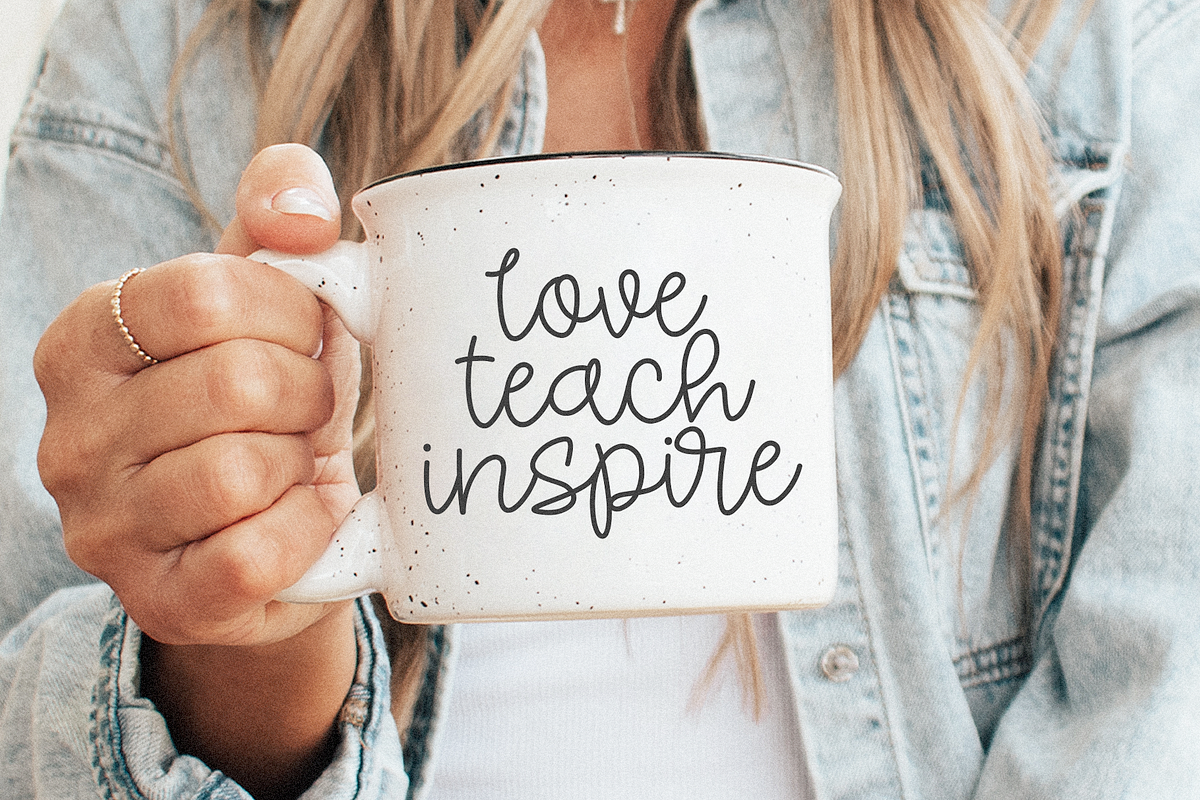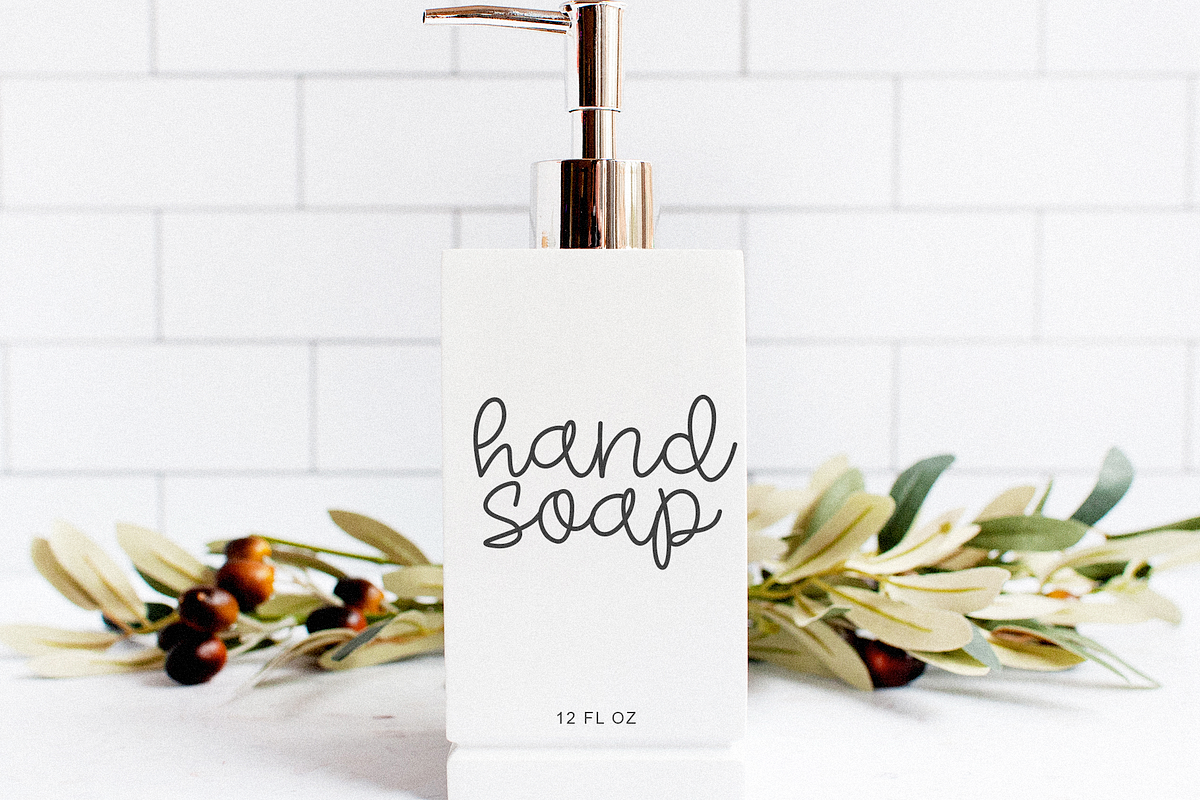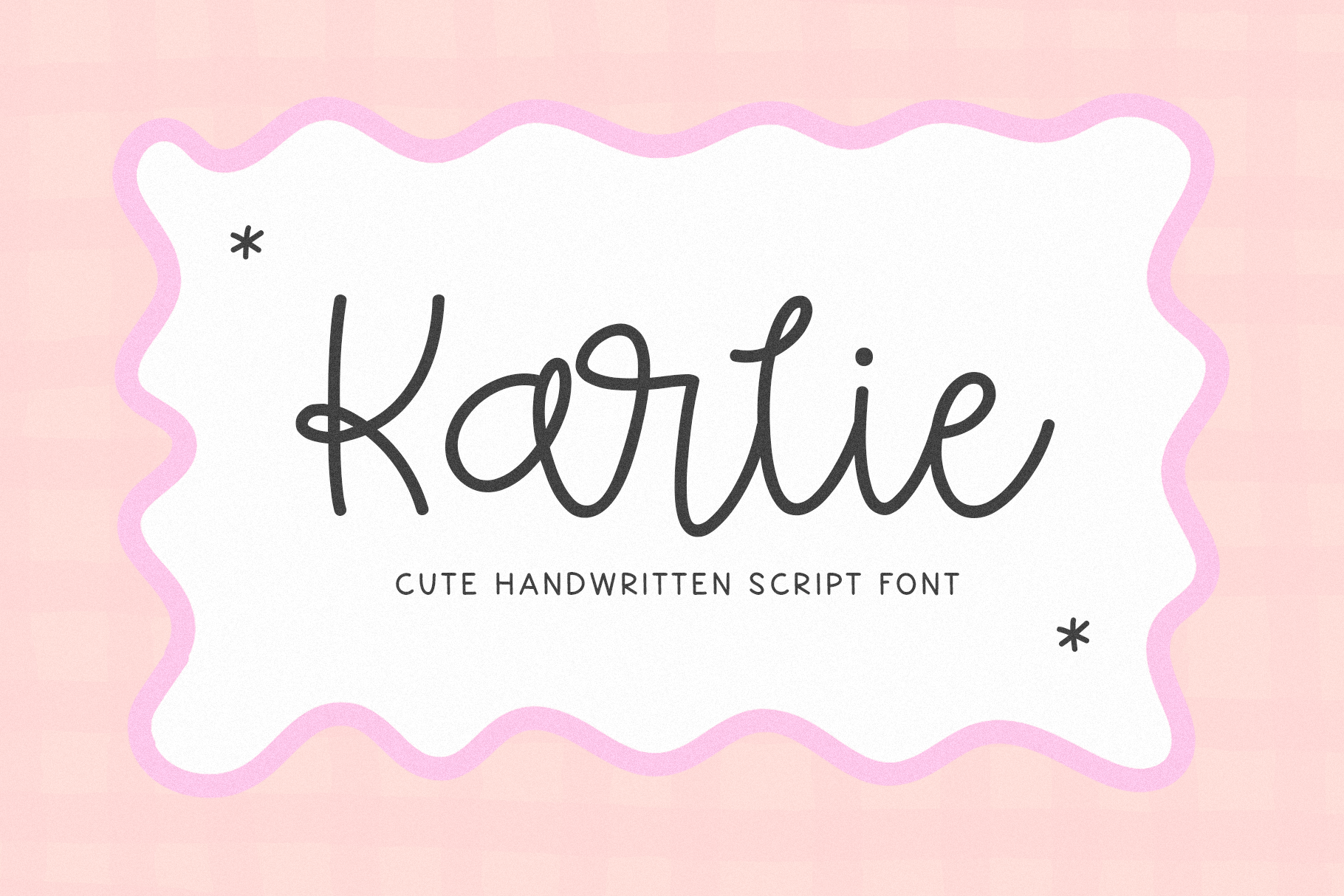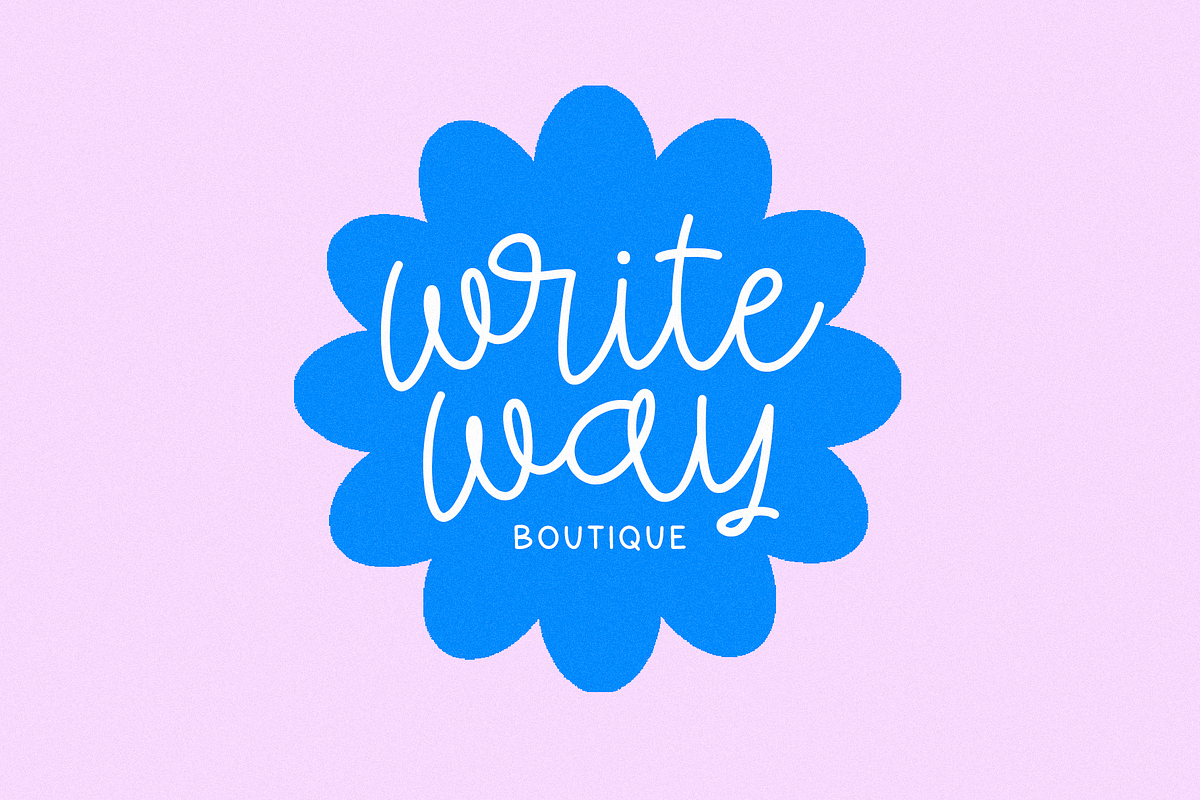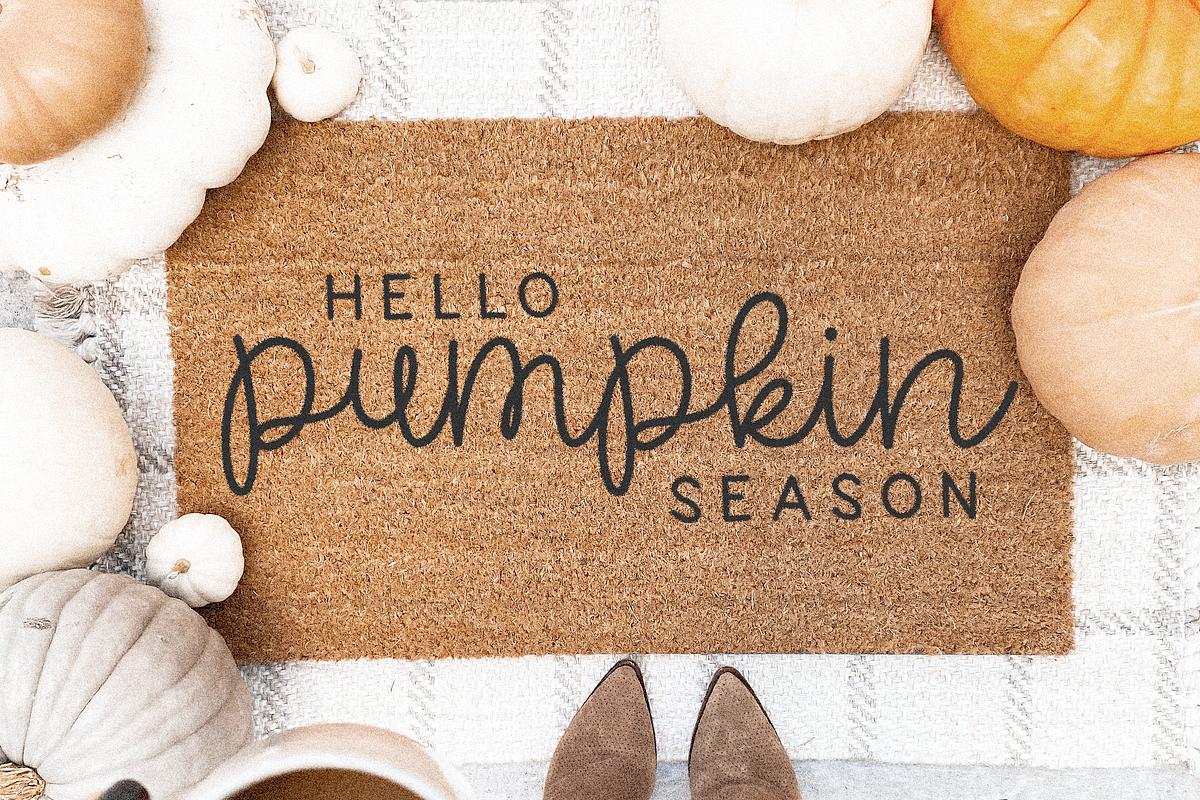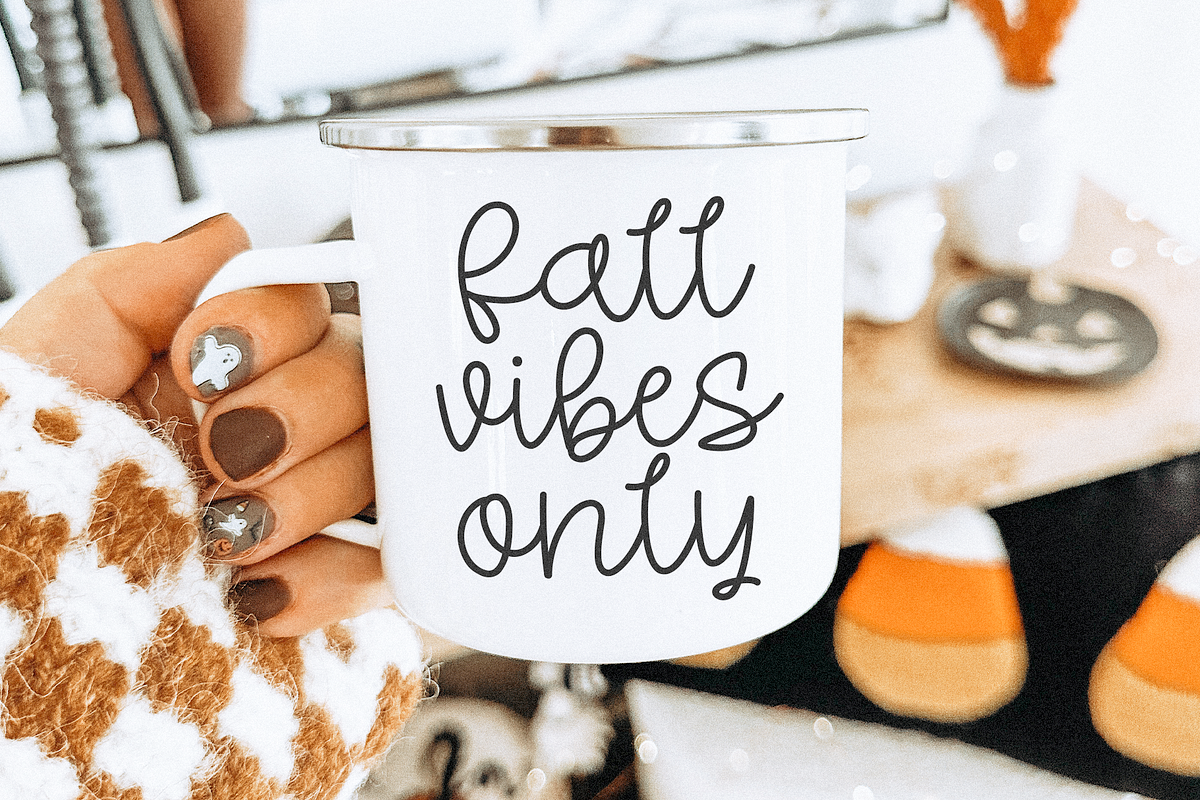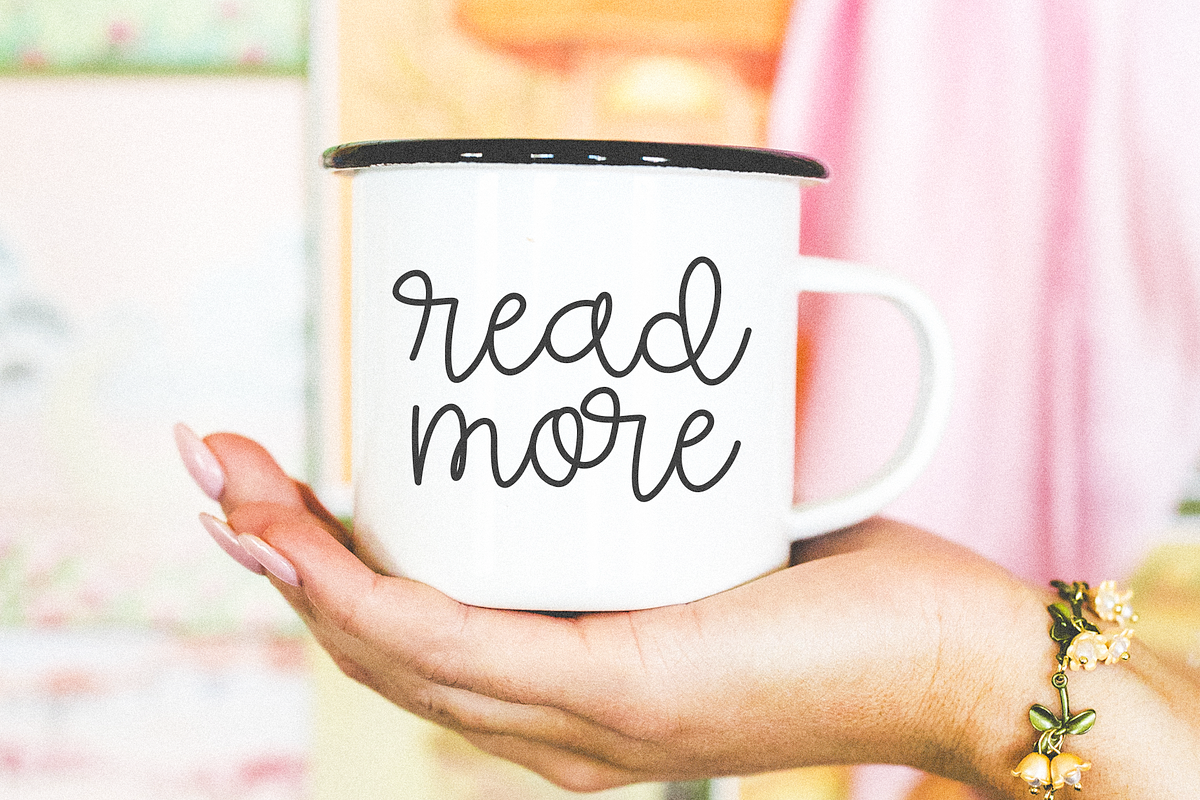
Karlie | Cute Script Font
Karlie is a cute handwritten script font! It is thin, bouncy and fun!
This font is perfect for logos, lettering, cards, banners, cricut, canva, teachers and more!